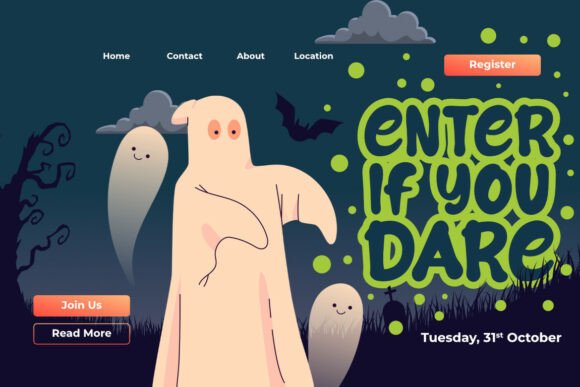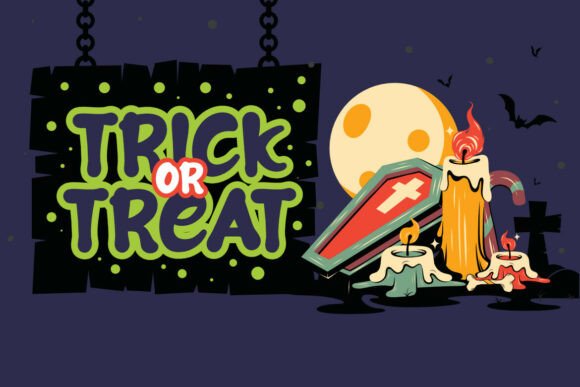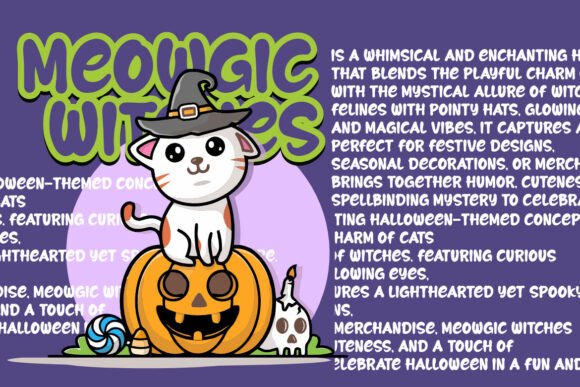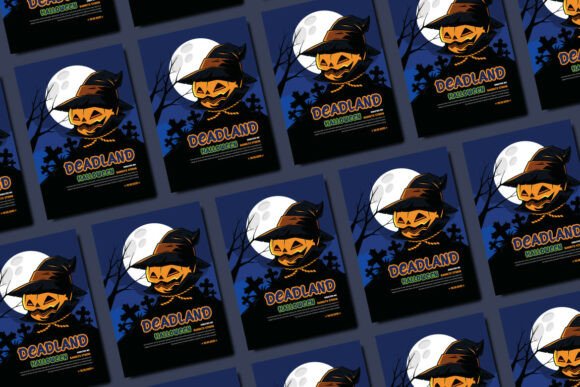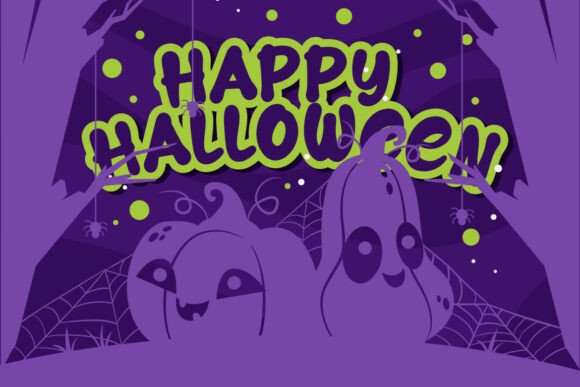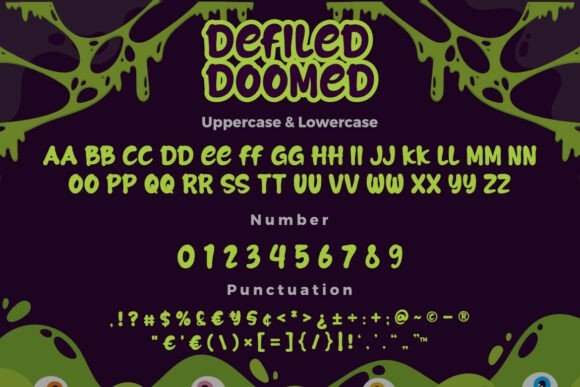
The Creepy Charm of Defiled Doomed Font: A Designer’s Delight
I still remember the night I was working on a Halloween-themed project for a client, and I was struggling to find the perfect font to capture the spooky essence of the design. The client wanted something that would make their audience shiver with delight, but I was stuck with a sea of generic, overused fonts that just didn’t cut it. That’s when I stumbled upon Defiled Doomed, a bold and creepy horror font that drips with eerie vibes and dark energy. It was love at first sight! 💡
An Honest Review: What I Love and What I Don’t
- ✅ Thick, rounded letters that give off a playful yet terrifying vibe
- ✅ Slime-inspired details that add an extra layer of creepiness
- ✅ Perfect for spooky and thrilling themes, from Halloween designs to horror posters
- ✅ Works great for titles, headings, and short phrases
The Not-So-Good Stuff 🤔
- ⚠️ Limited use for body text or long paragraphs due to its bold and condensed style
- ⚠️ Some characters may not work well in combination with each other, requiring manual kerning
Defiled Doomed was designed with one goal in mind: to create a font that would capture the essence of spooky and thrilling themes. The designer, inspired by classic horror movies and haunted houses, set out to create a font that would make audiences shiver with delight. With its thick, rounded letters and slime-inspired details, Defiled Doomed is the perfect font for anyone looking to add a touch of creepiness to their designs.
Q: What type of designs is Defiled Doomed best suited for?
A: Defiled Doomed is perfect for spooky and thrilling themes, such as Halloween designs, horror posters, scary game titles, and themed merchandise.